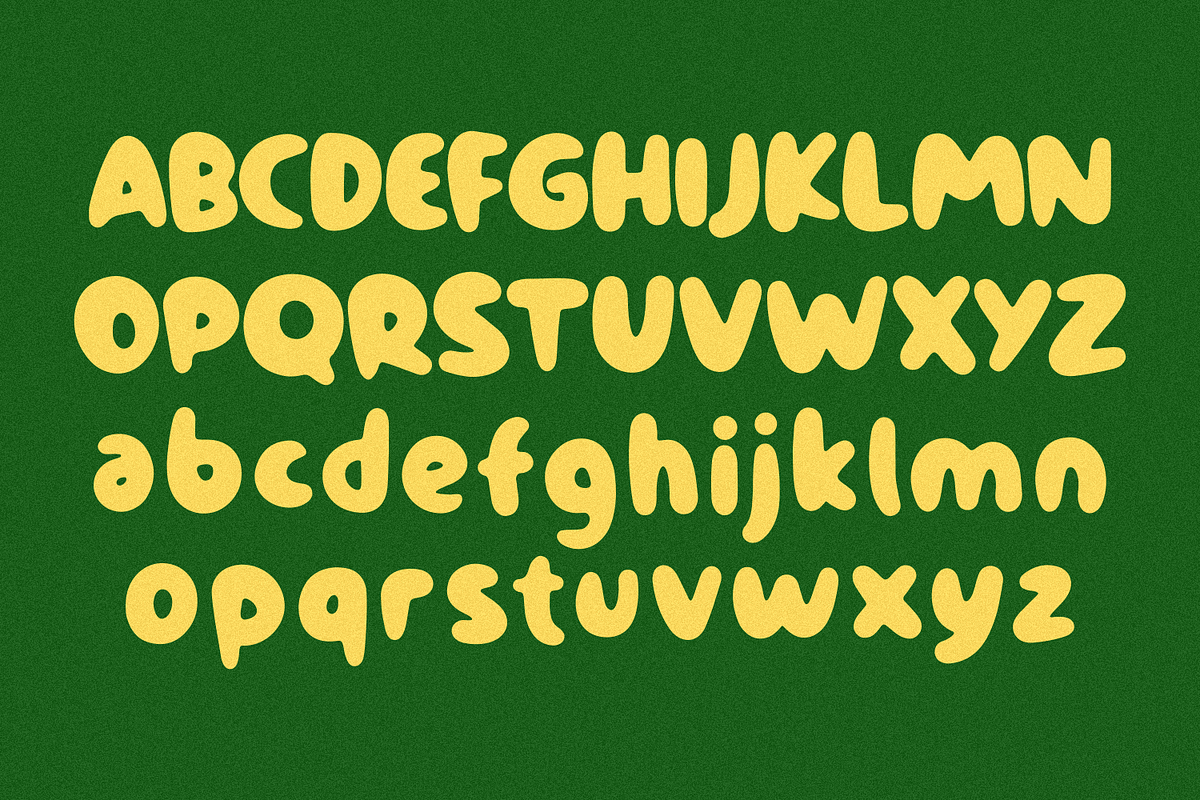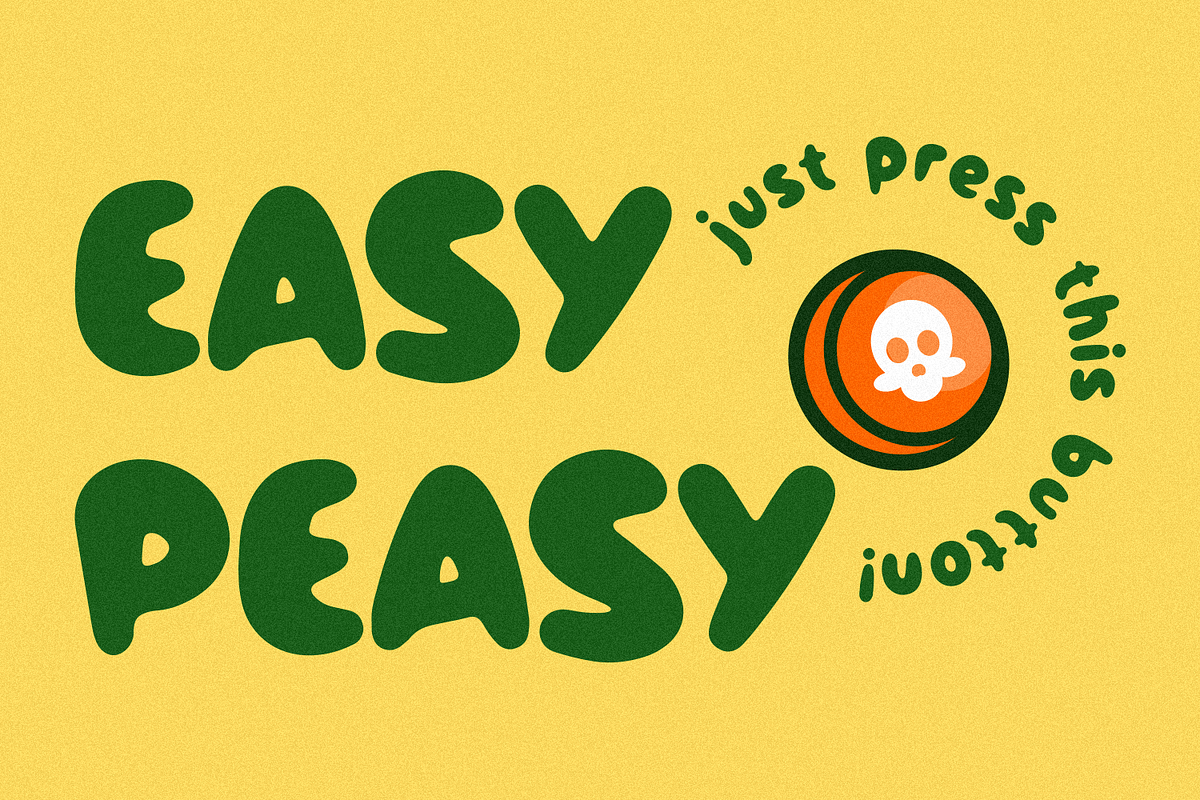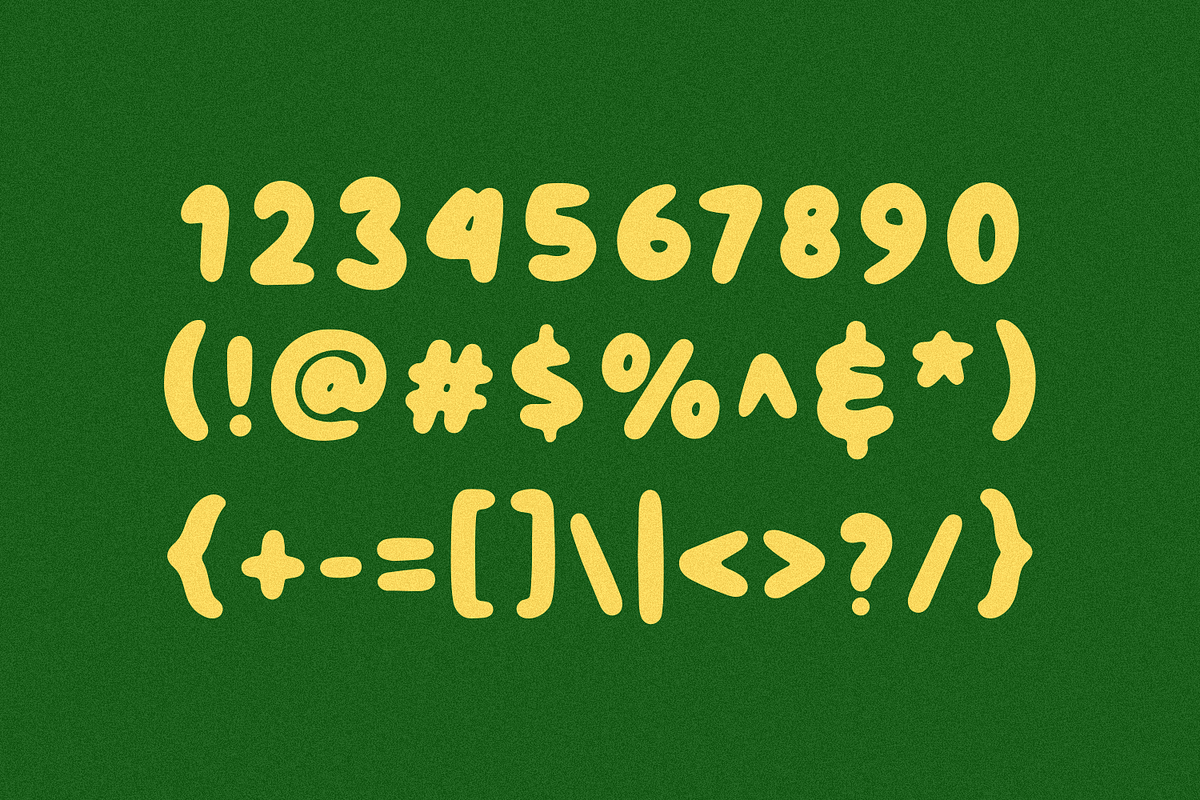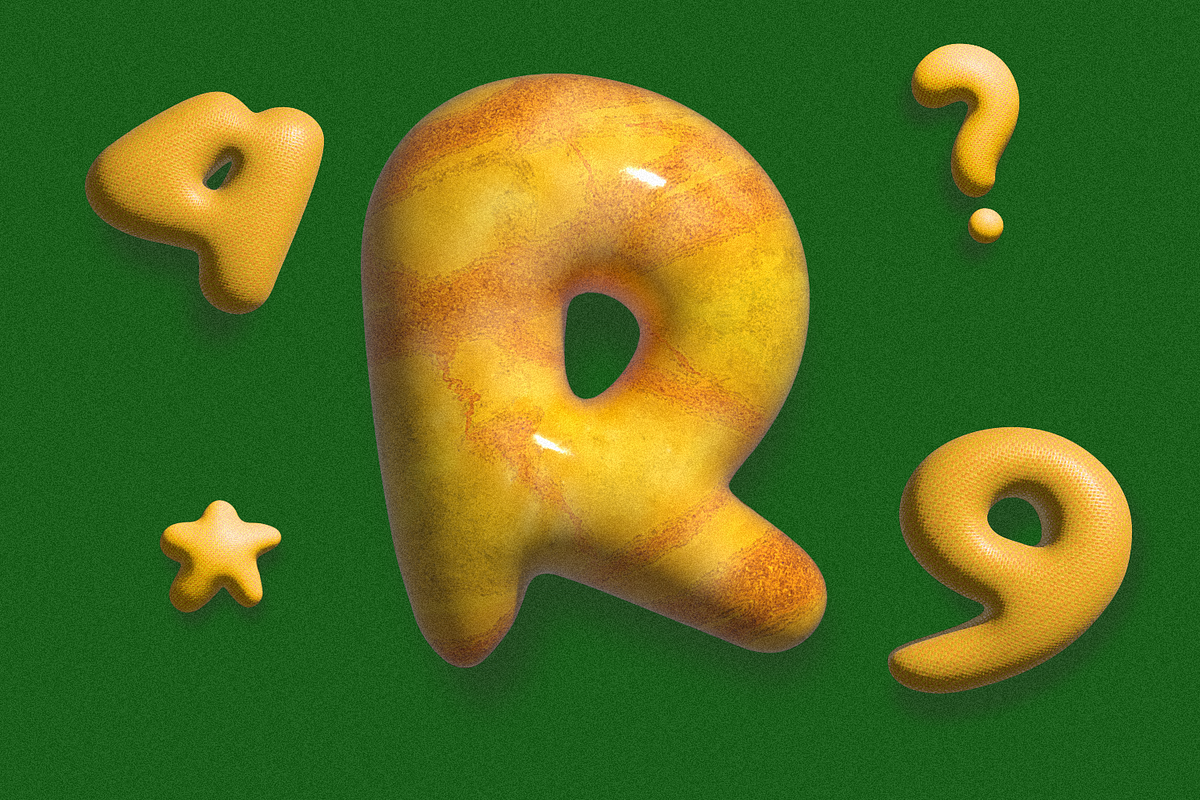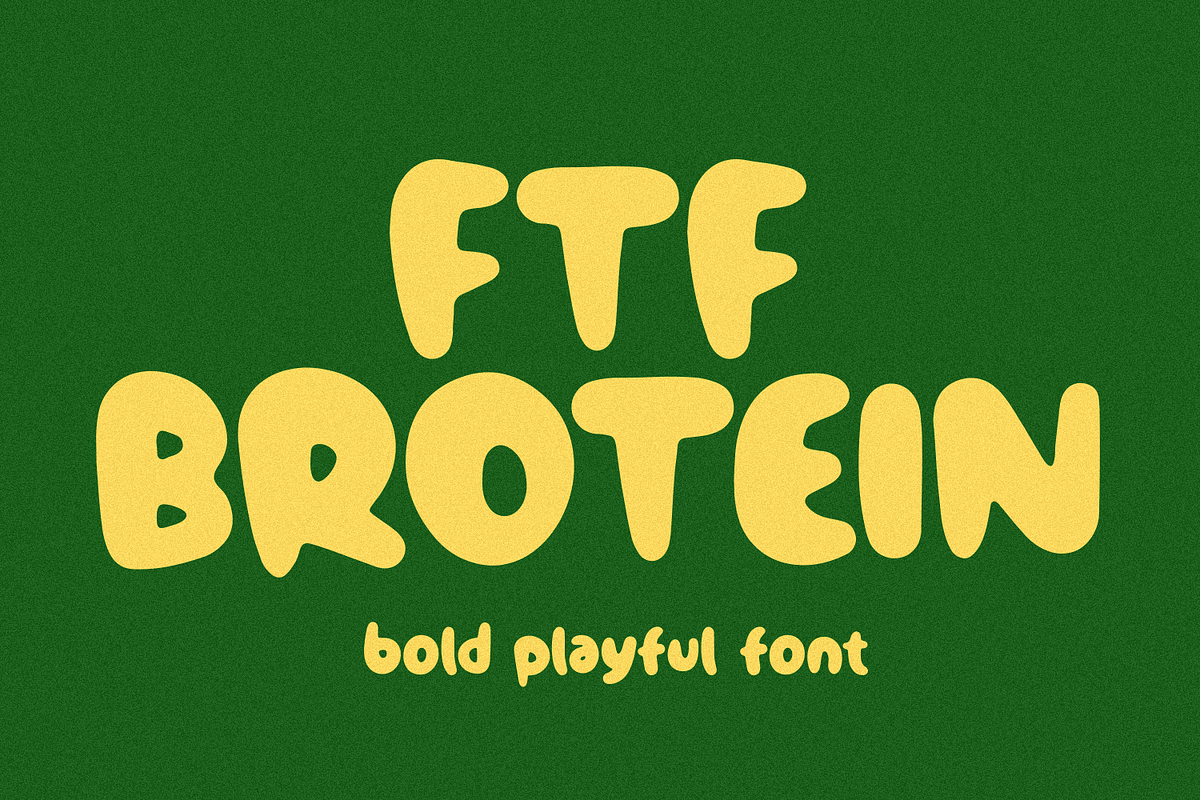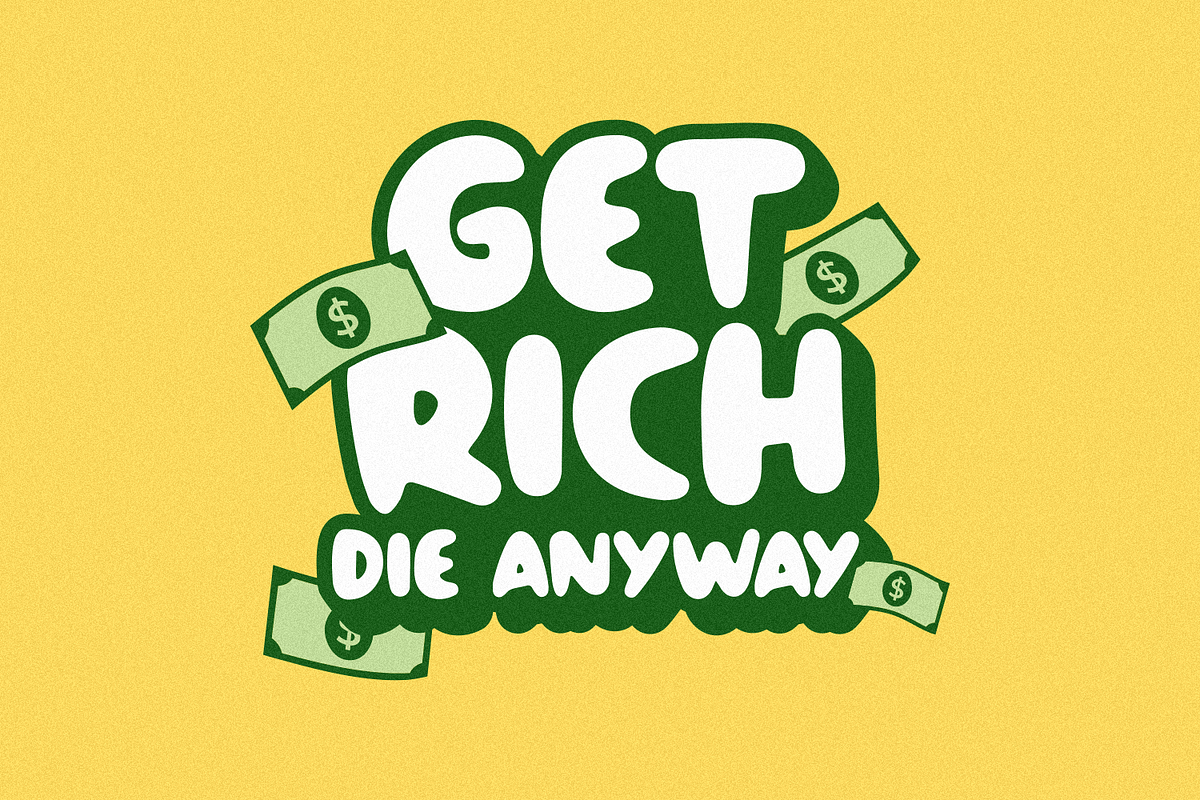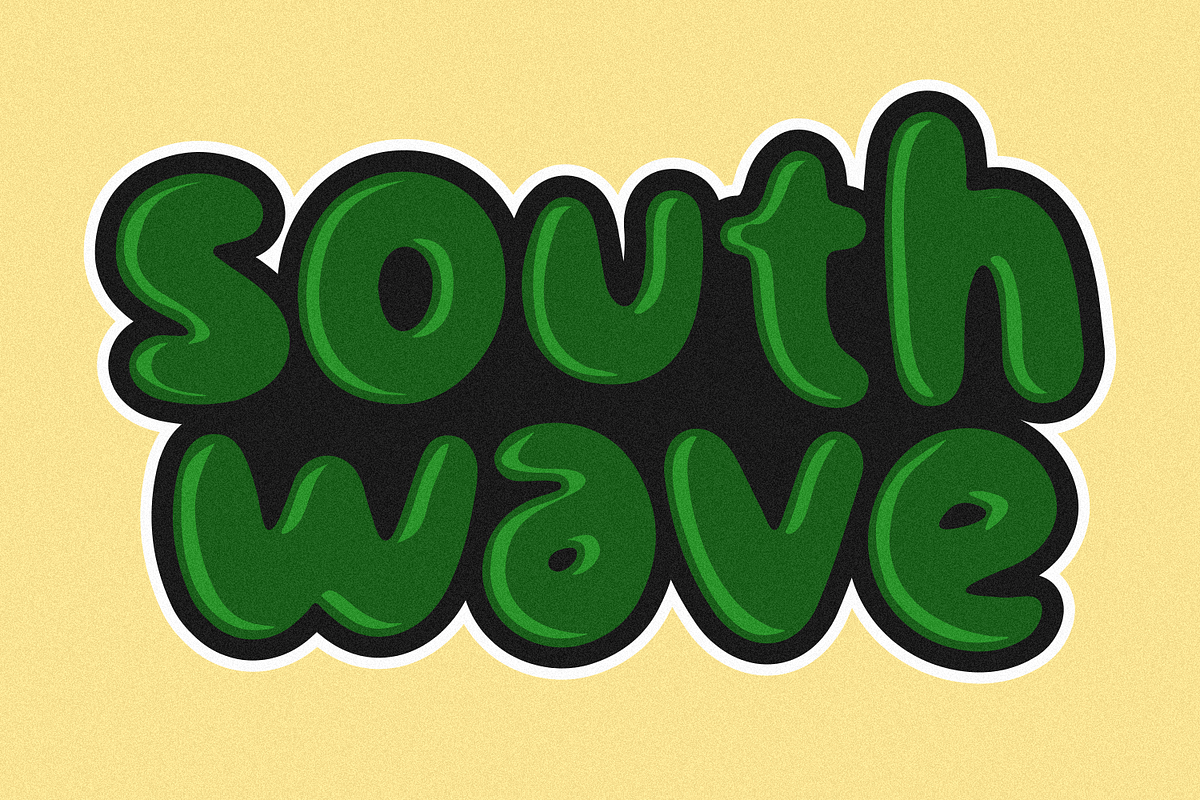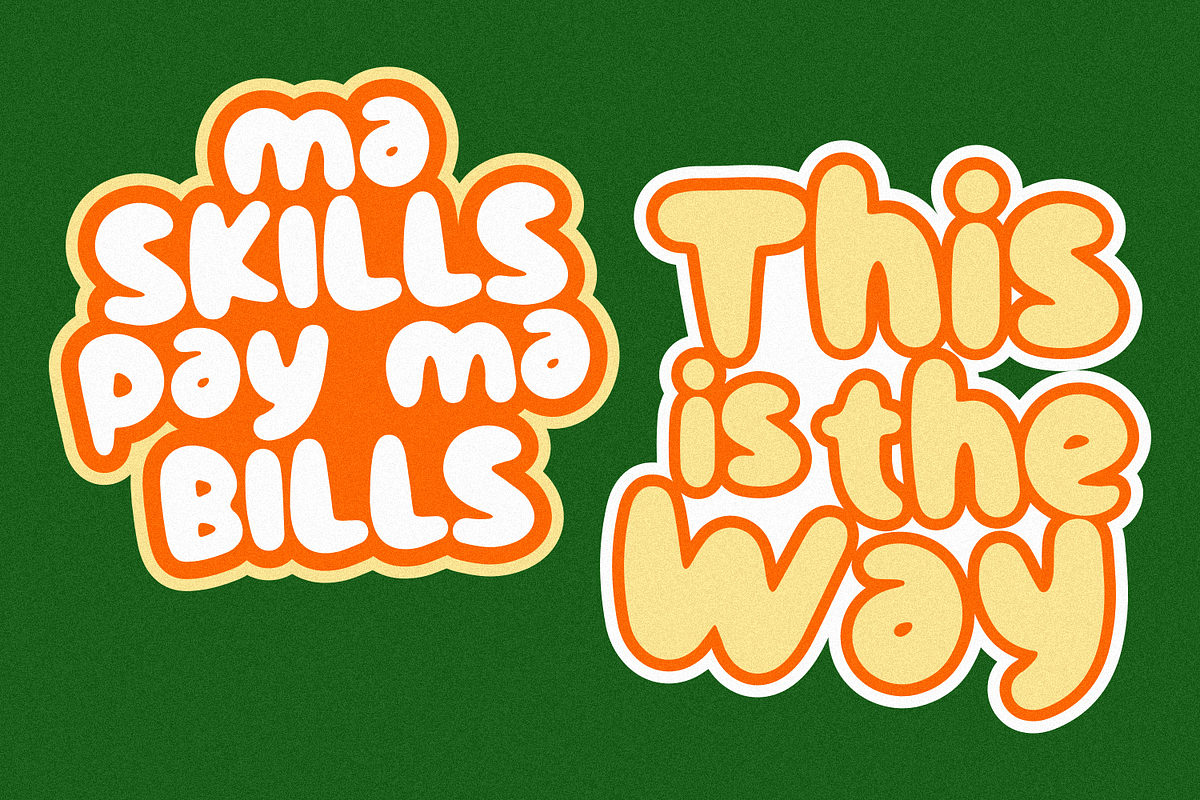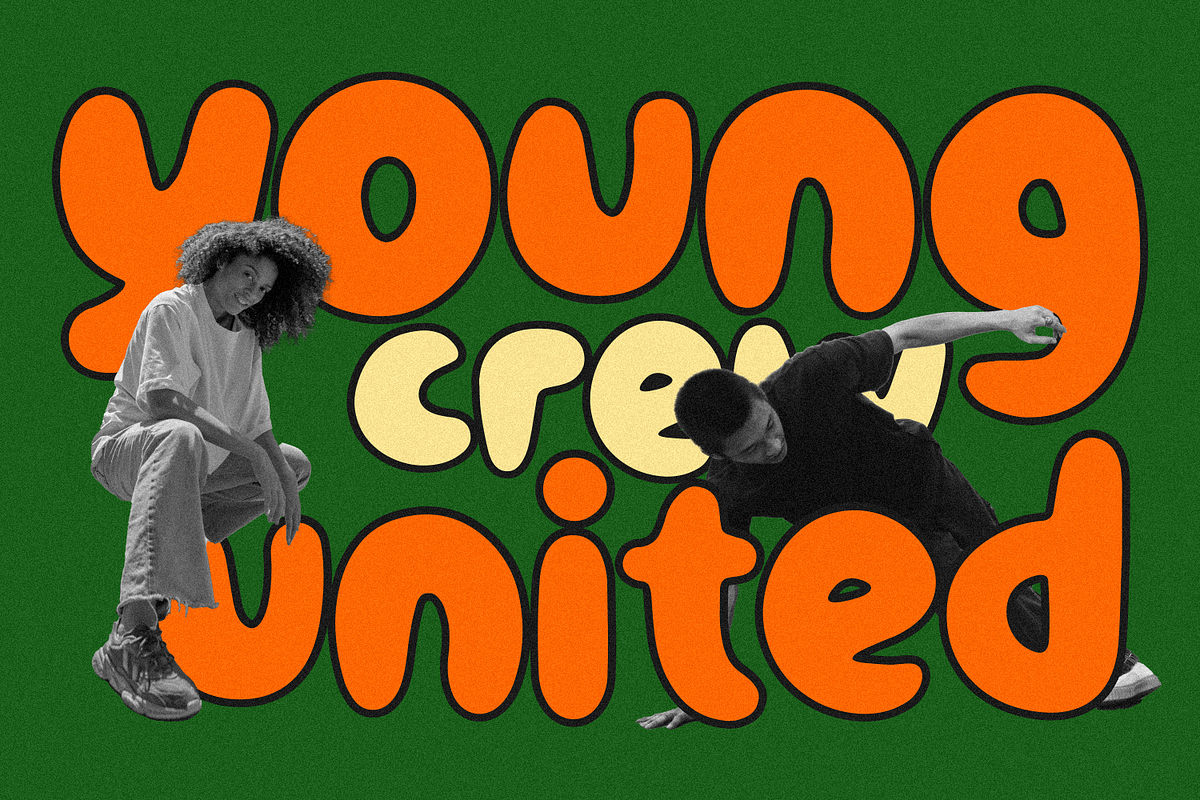
FTF Brotein
Introducing FTF Brotein by Forberas Club
FTF Brotein is a Handwritten Script font that will make your designs look classic, Farmhouse, Boho, and Feminine. It is a great font for events, Wedding Project, signature, album covers, logos, magazines, advertisements, Crafting Idea but it also works great for other projects. Add it to your fonts library, and it will enhance your creativity!
FTF Brotein is best for:
- logos, branding, & Signatures.
- Flyers, Album cover, Magazine, & Advertisements.
- Website design , design blogs.
- Quote graphics for social media. - and also it works great for other projects.